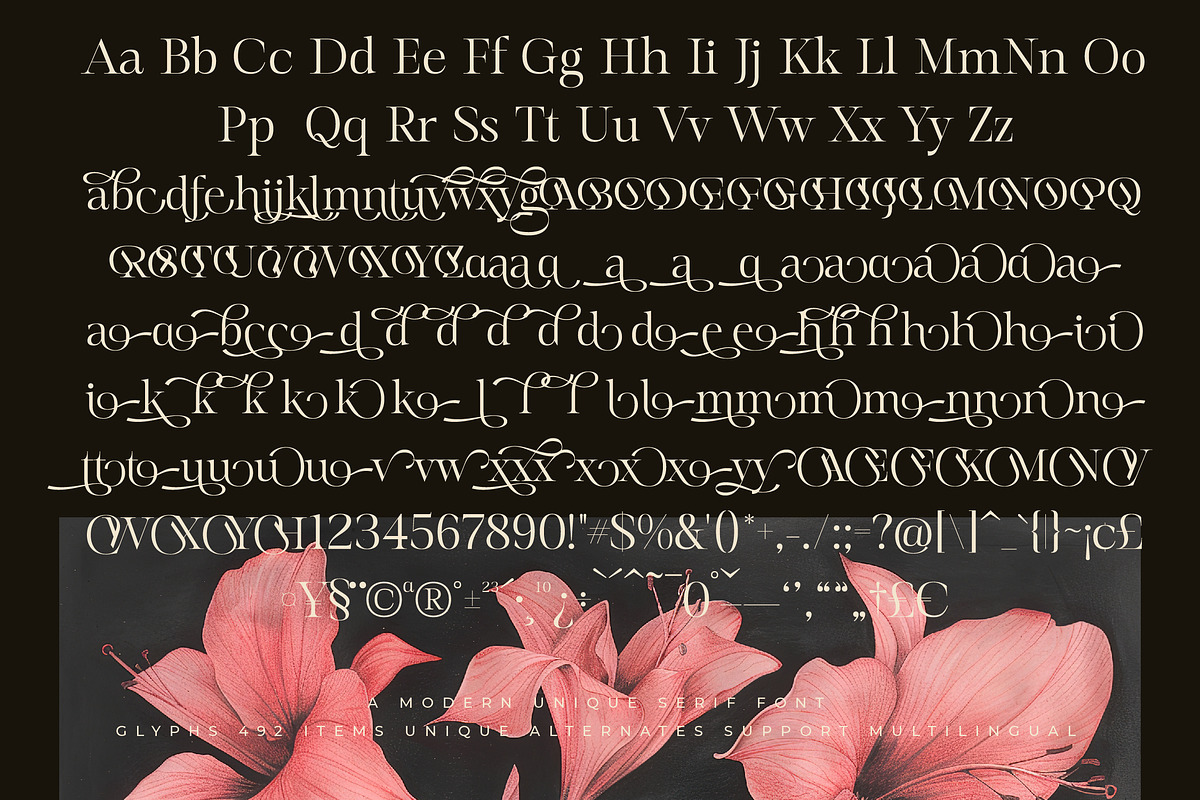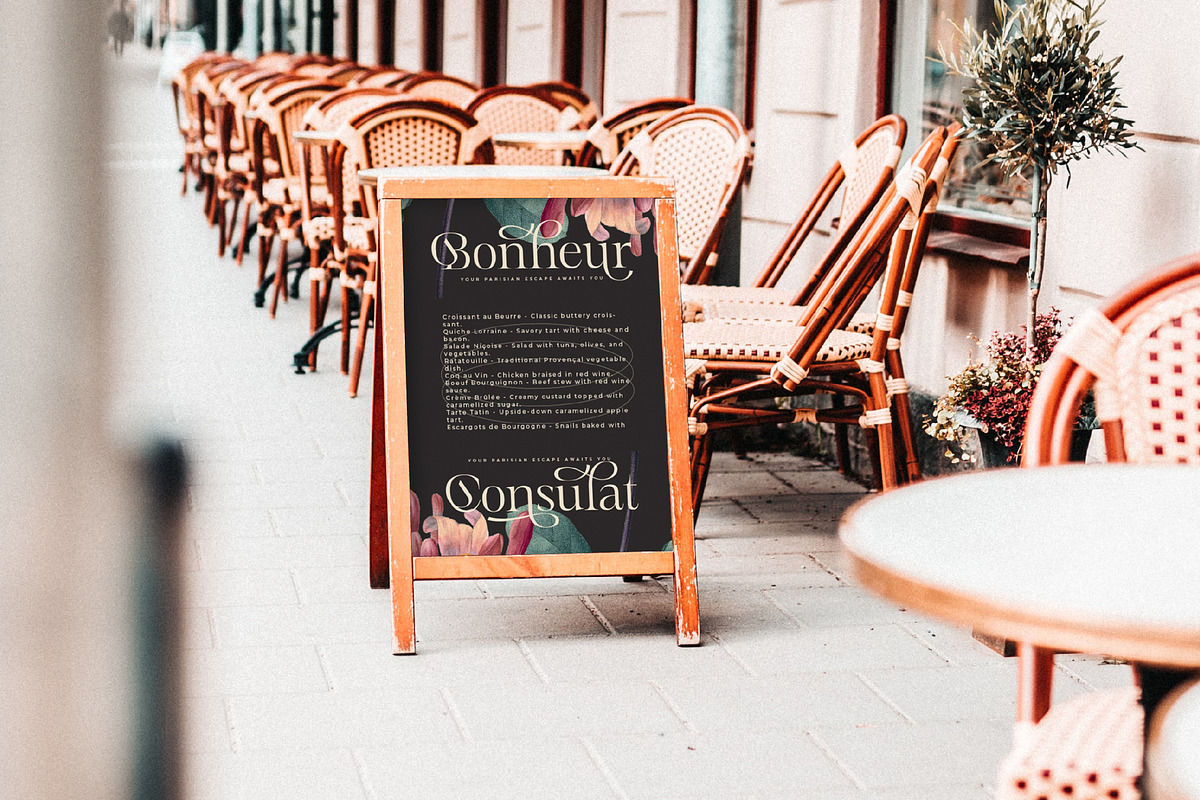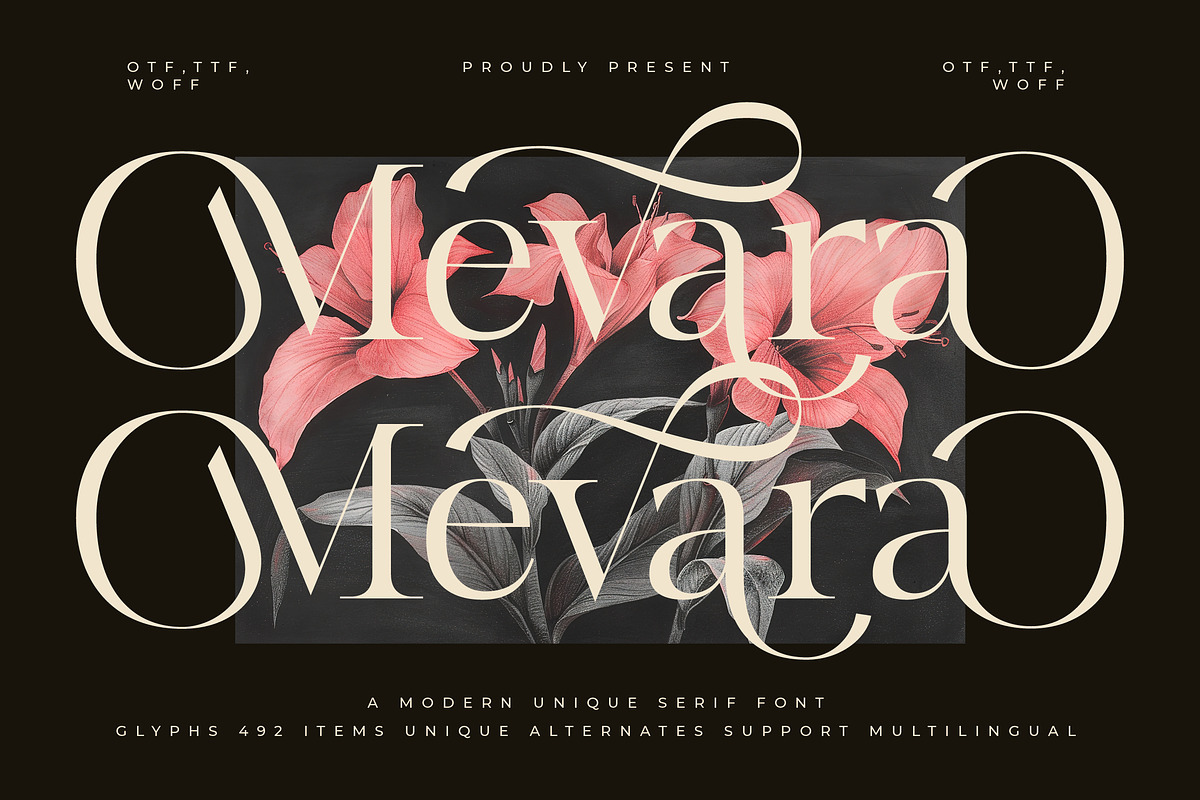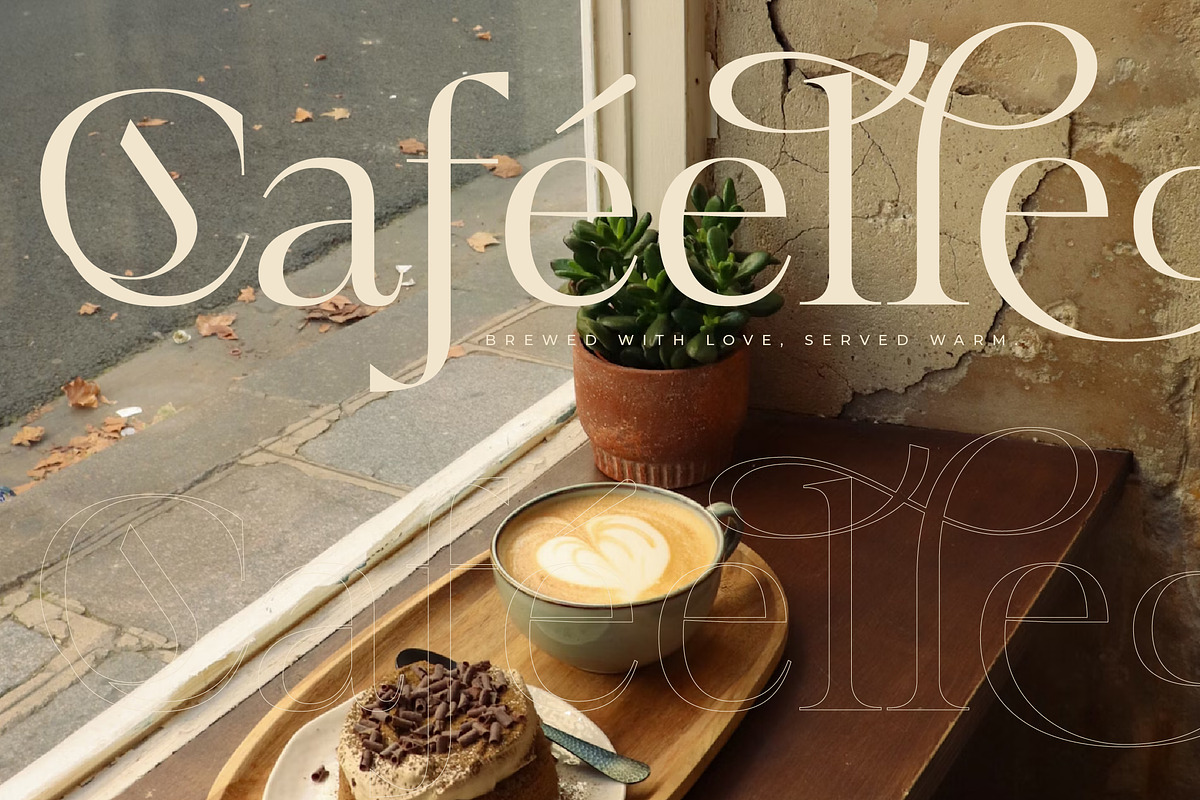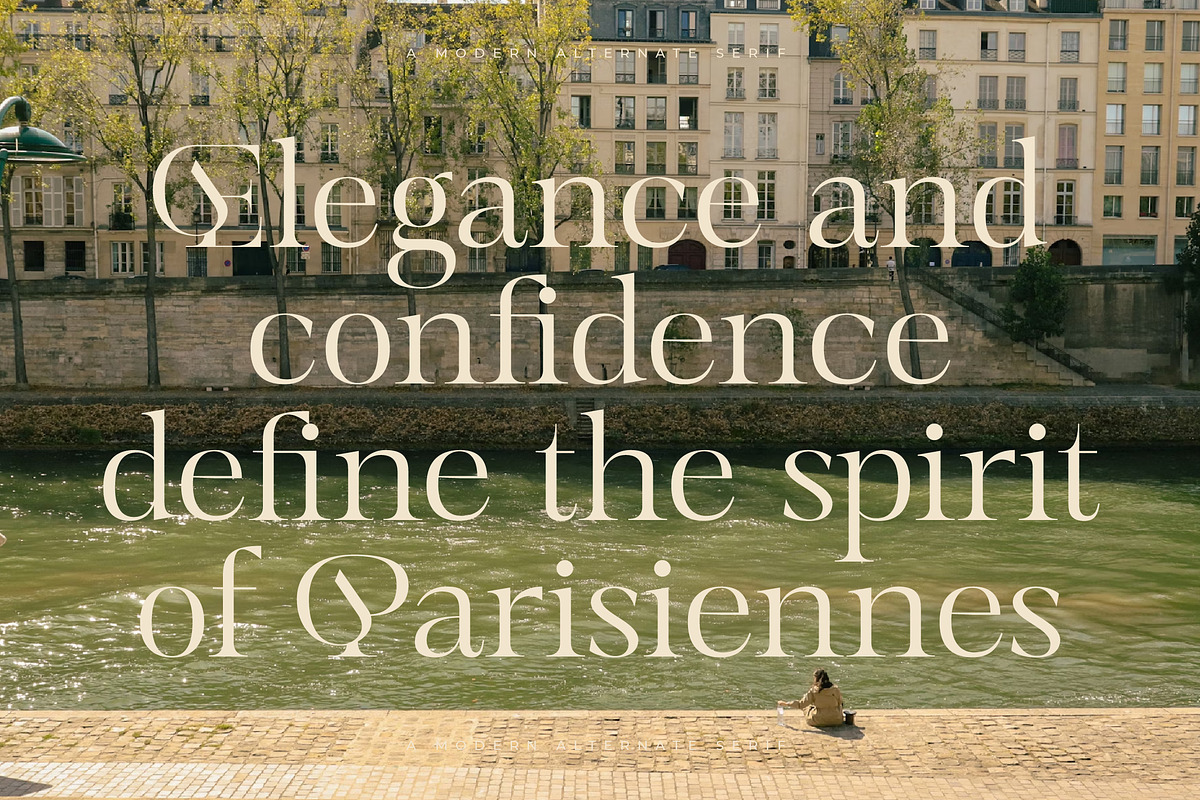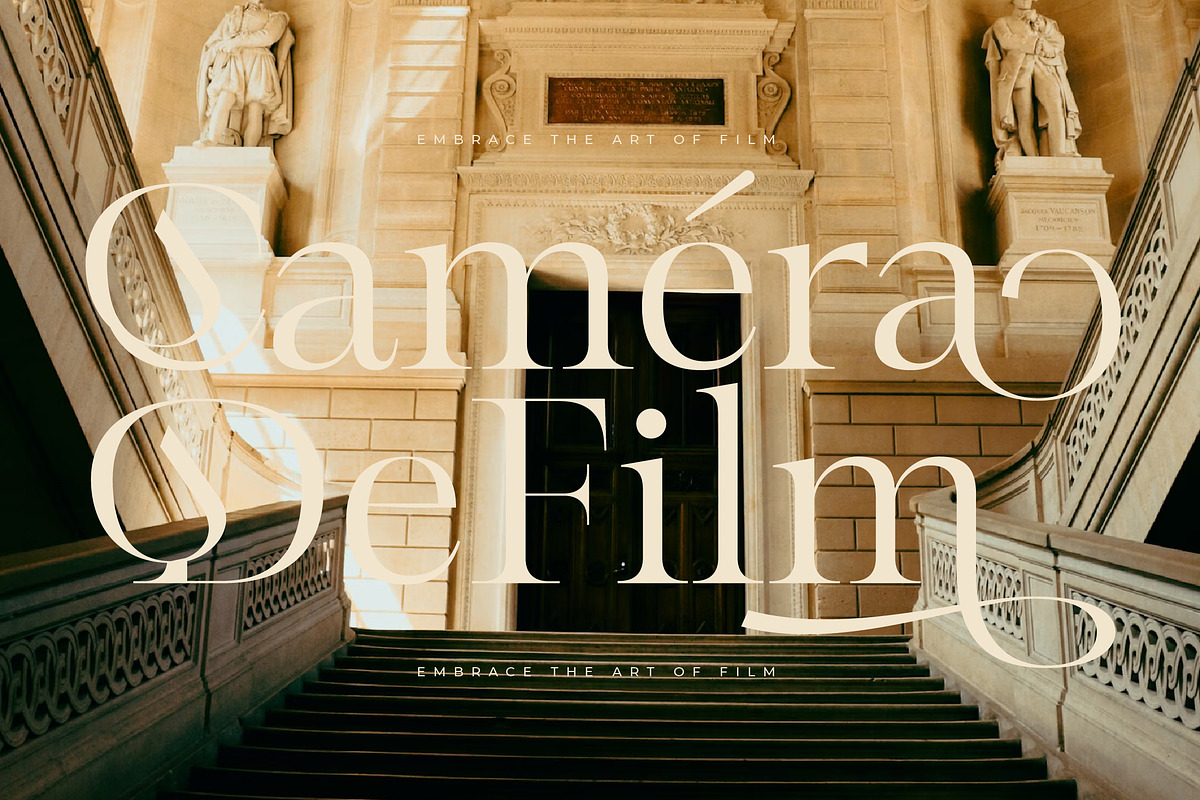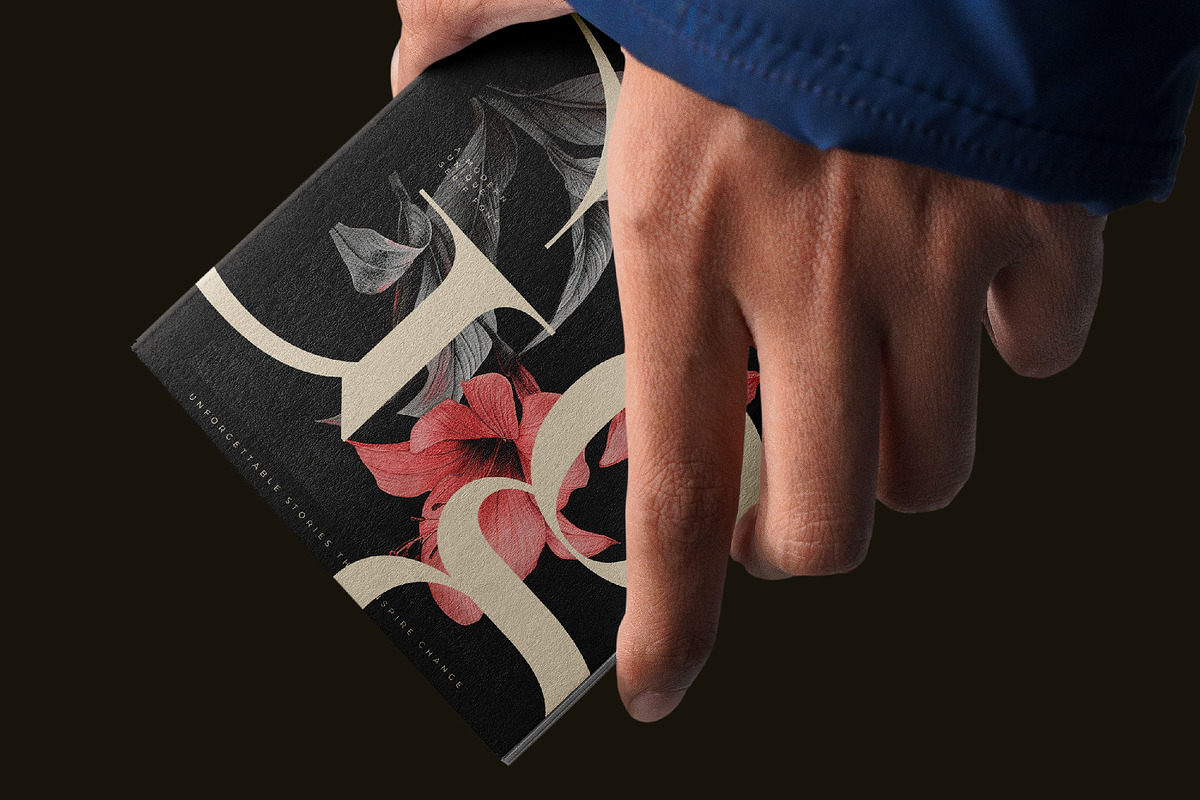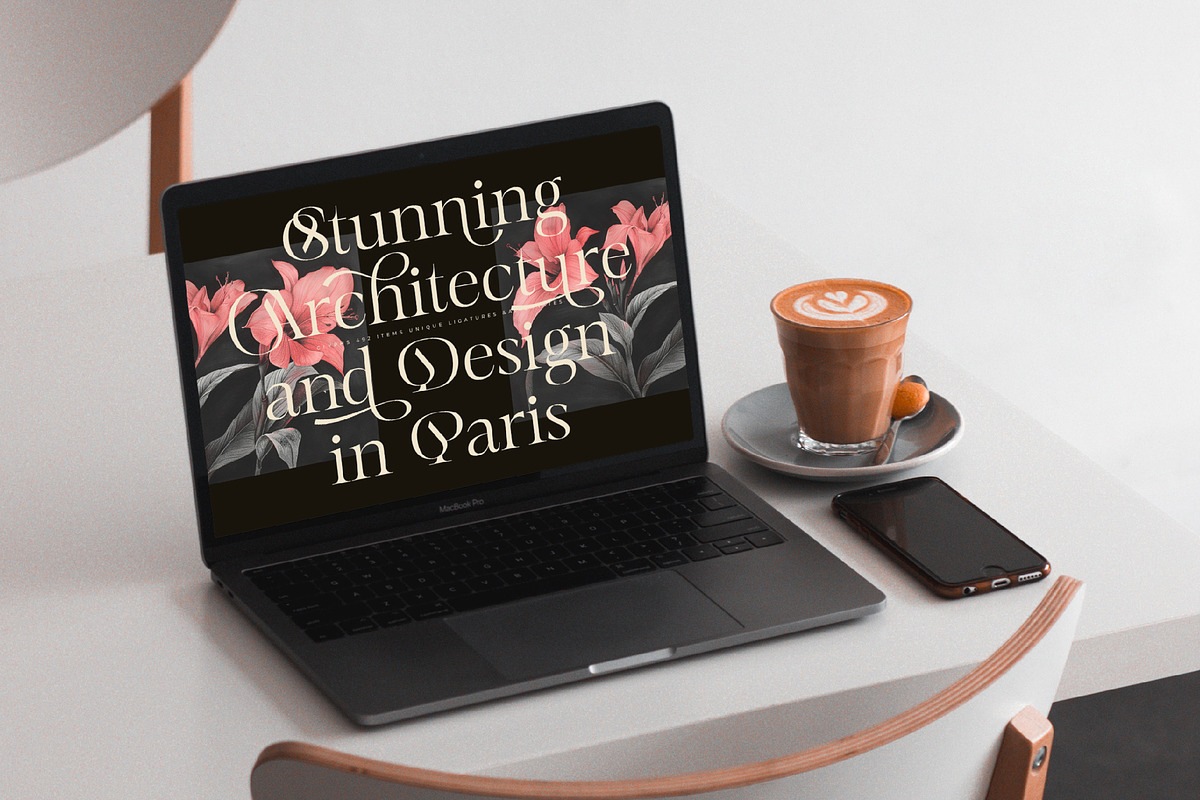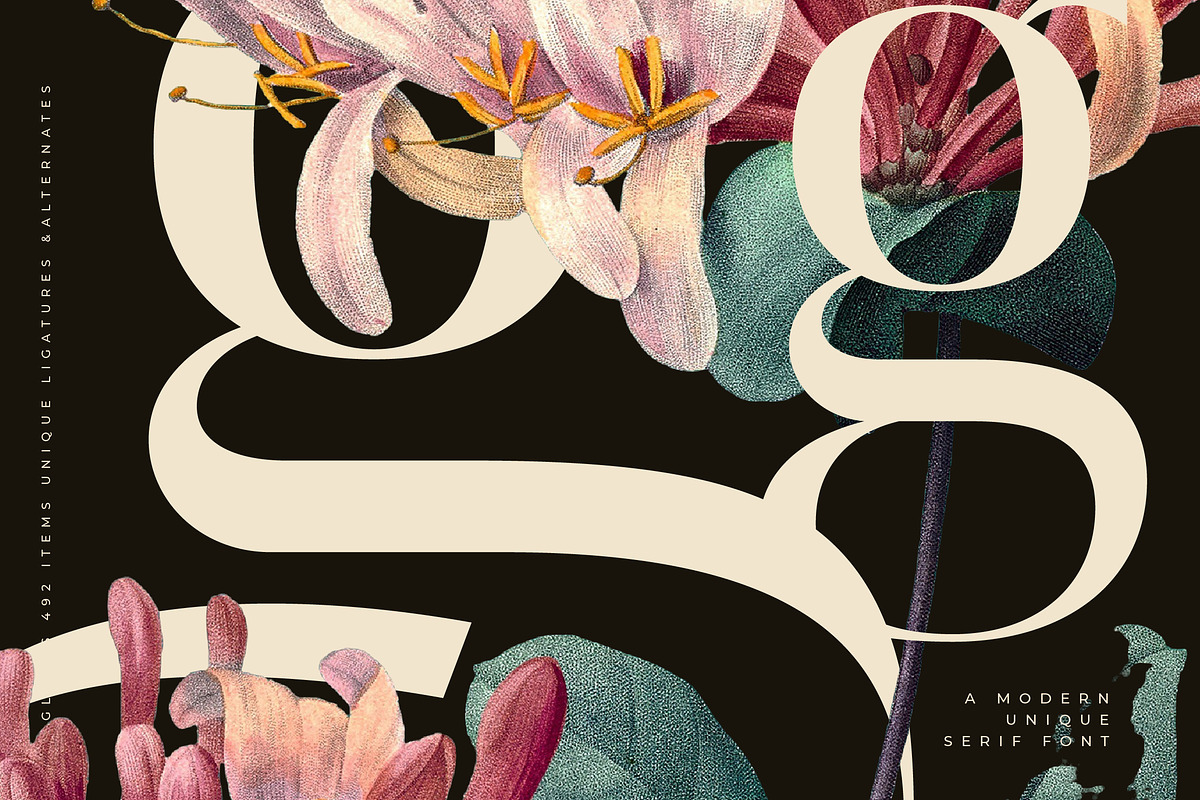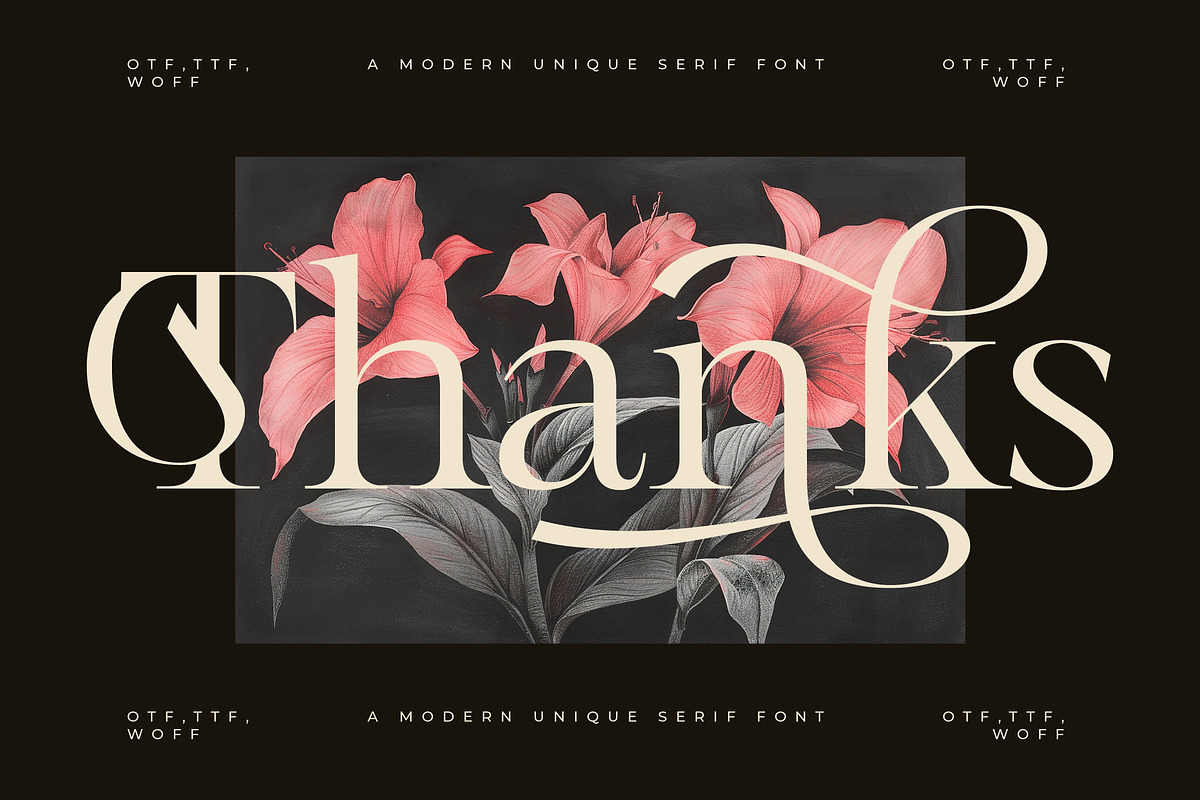
Mevara - Elegant Serif with Flourish
Do you feel frustration and anxiety when fonts just won't look as luxurious as you envision for your brand or special invitation? Each stroke feels cold, bland. Valuable time is wasted, revisions are unavoidable, and there's a deep fear the outcome will look ordinary, not the masterpiece representing your best quality. Mevara is your visual ally. Meticulously crafted, it speaks authentic luxury, becoming the key to creating stunning visuals and leaving an unforgettable impression without compromise. Feel the confidence and relief seeing your brand shine or your invitation become a symbol of awaited elegance. Mevara is an investment in your visual elegance and professionalism. Get Mevara now – transform your vision into stunning reality and achieve the premium results you crave!